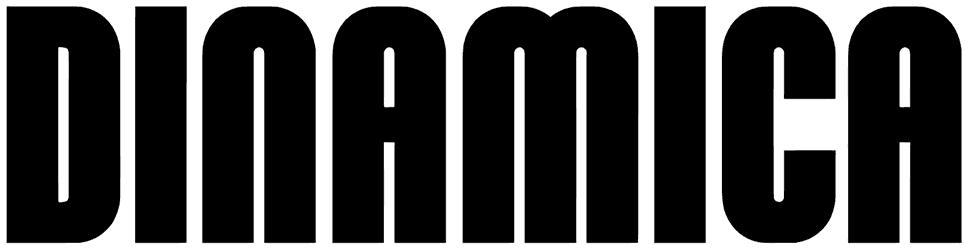
Dinamica Font
Let the modern touch of your design be more obvious than ever by choosing Dinamica as the title font for your next project. You can only get those tall, thick letters of it in the uppercase version, meaning that it won’t let anyone make light of your text message.
Nailing that neat, trendy look, Dinamica will easily fit the bill as a condensed font for your music club posters, coffee shop signs, banners, or even a cutting-edge insurance company business card.